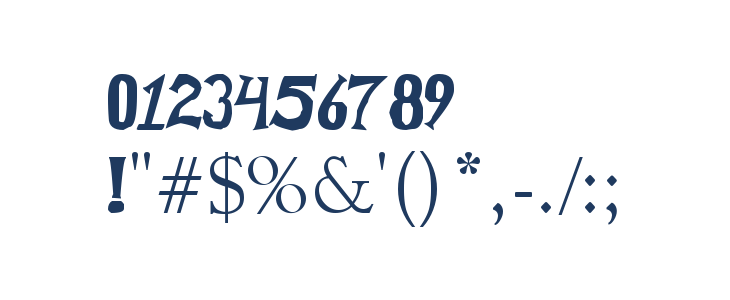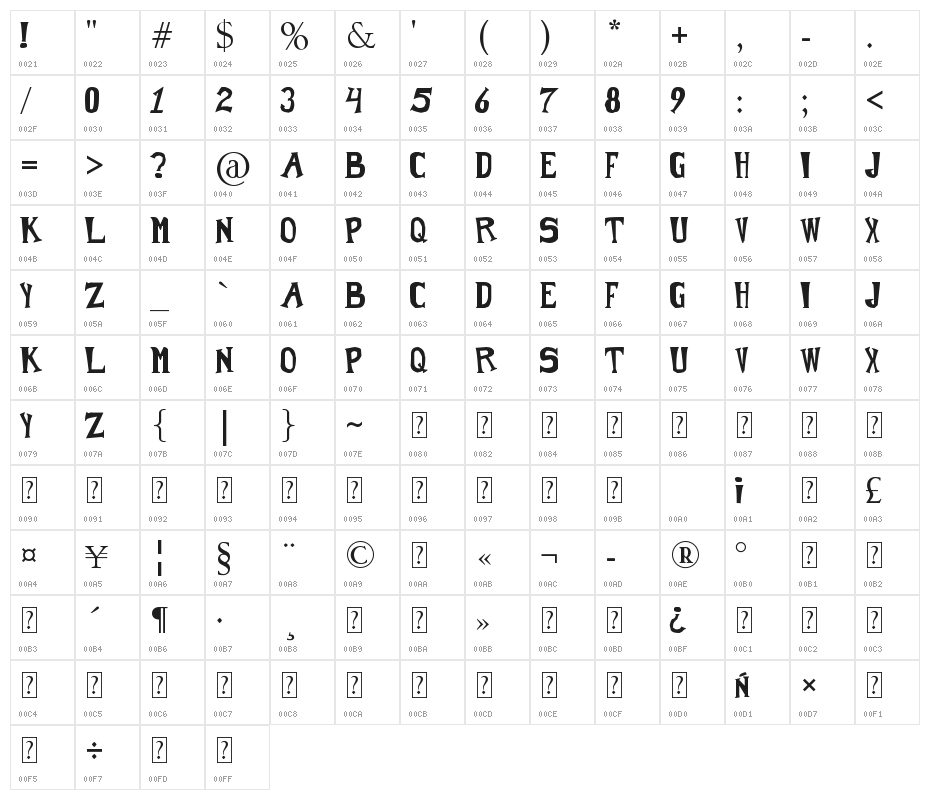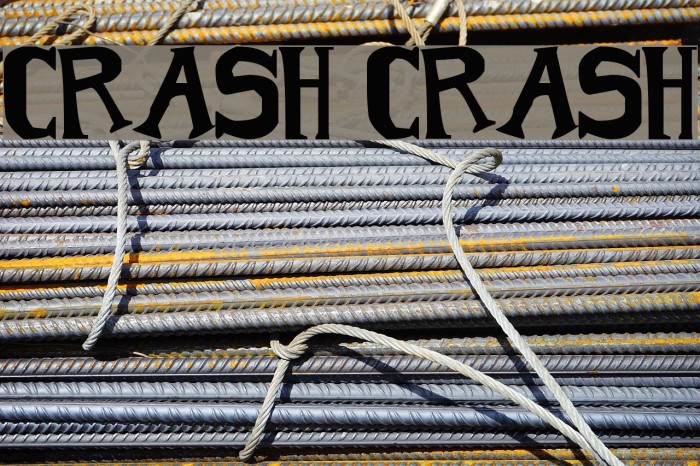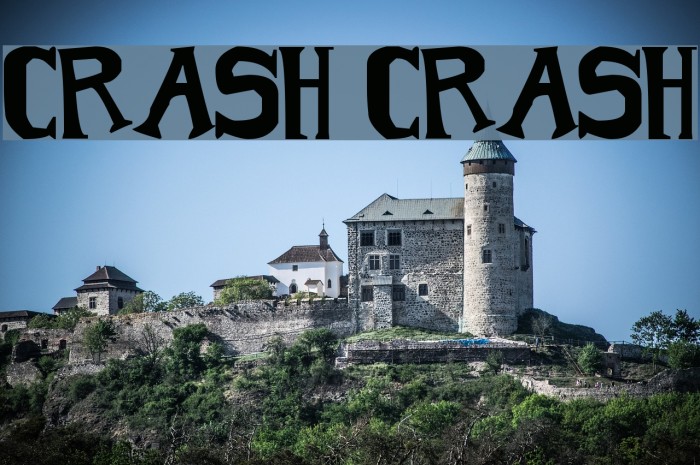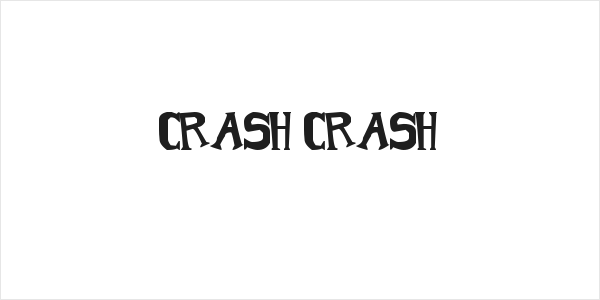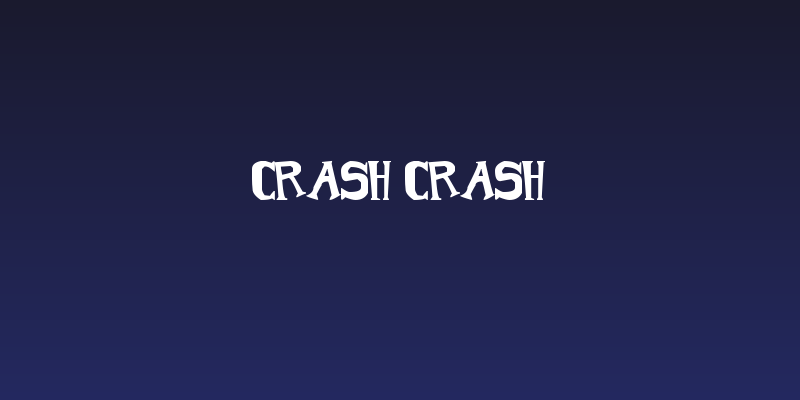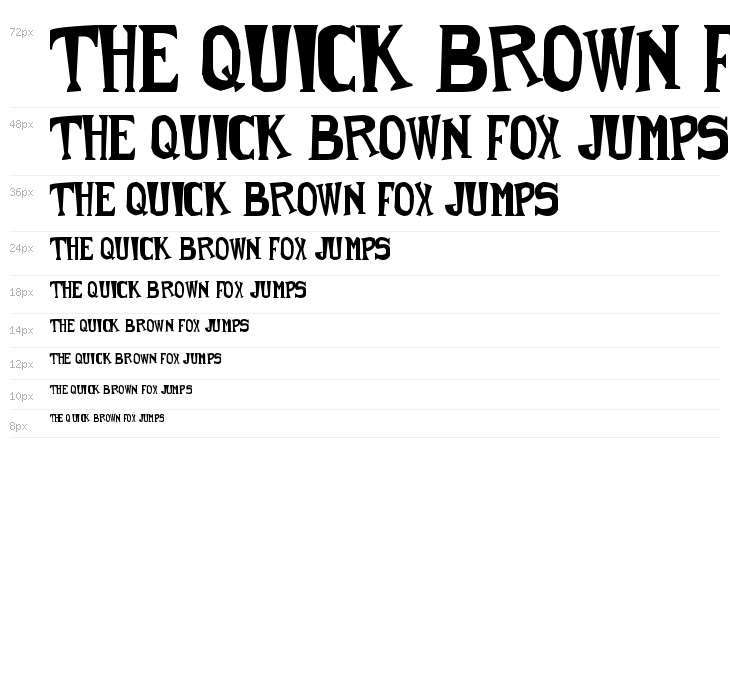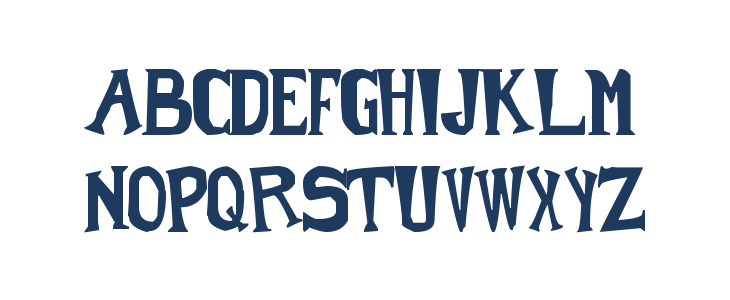
Crash Crash Font
Crash Crash Description
This font exhibits a bold and dynamic style with sharp, angular edges and a slightly distressed appearance. The uppercase and lowercase letters maintain a consistent height, creating a uniform look across the alphabet. The numbers and special characters follow the same design principles, ensuring cohesion throughout. The font's unique character is emphasized by its jagged edges and irregular strokes, giving it a rebellious and energetic feel. This style is reminiscent of graffiti or street art, making it stand out with its bold presence. The overall design is both eye-catching and memorable, suitable for projects that require a strong visual impact.